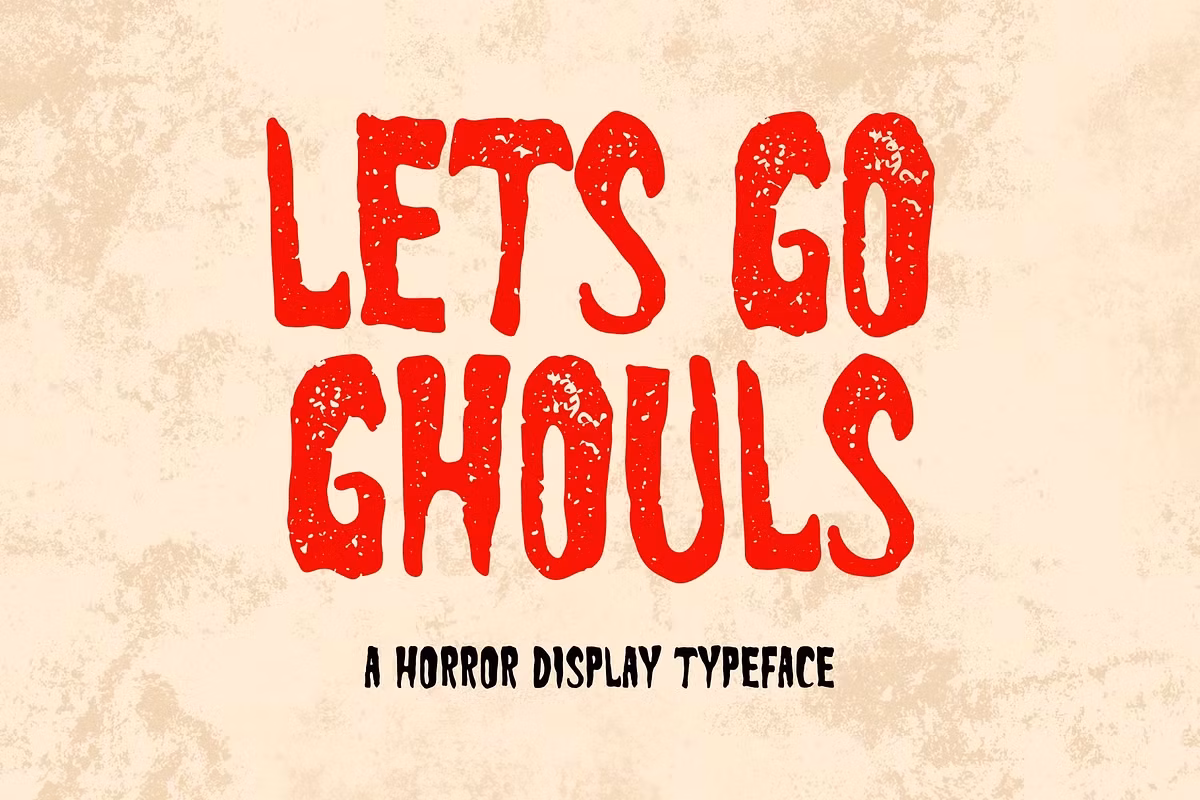
Lets Go Ghouls Font - Horror Font Free Download
Lets Go Ghouls Font - Horror Font Free Download is a spooky, playful typeface that perfectly blends creepy charm with Halloween fun. With jagged edges, quirky curves, and a hand-drawn aesthetic, this font is ideal for Halloween party invitations, haunted house flyers, themed merchandise, social media graphics, and horror-inspired designs that don’t take themselves too seriously.
Its bold and eye-catching style makes it great for headlines and display purposes, bringing a mix of eerie excitement and whimsical flair to your projects. Whether you're designing for kids or adults, this font adds a festive fright to any layout.